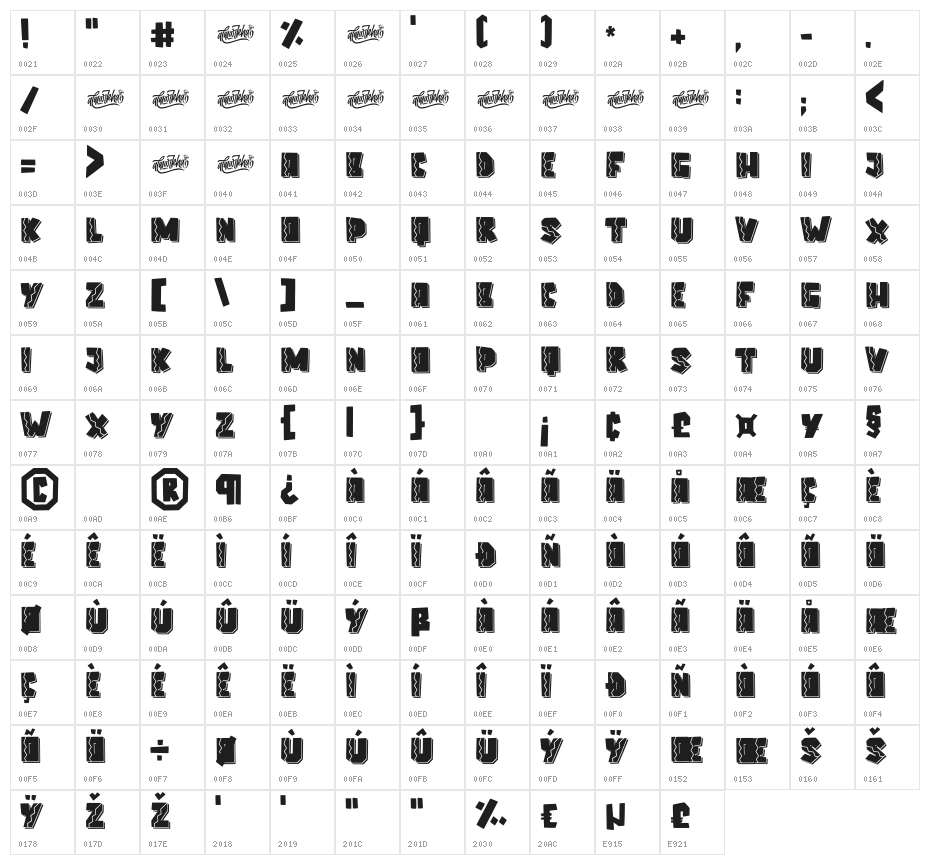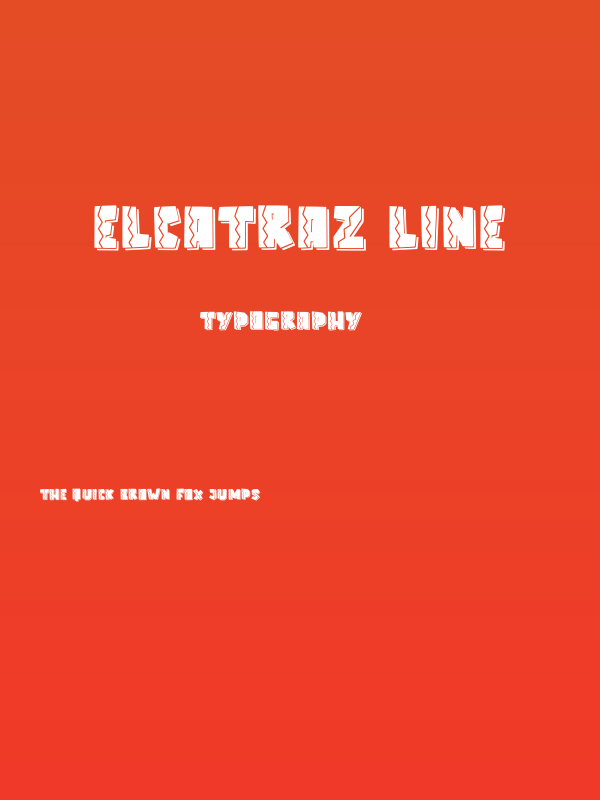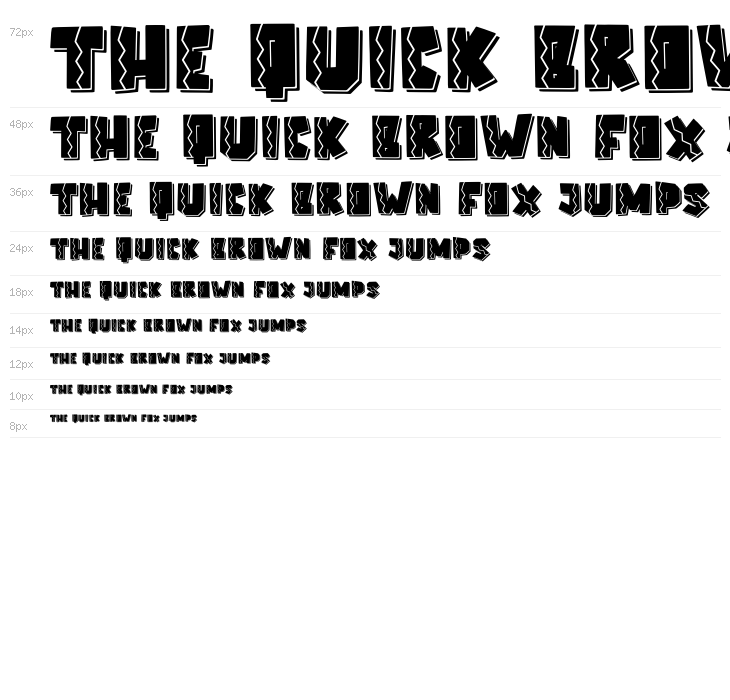
Elcatraz Line Font
Elcatraz Line Description
This font features a bold and striking design with a three-dimensional effect, characterized by thick, angular lines and sharp edges. The uppercase letters are particularly prominent, with a blocky, geometric style that gives them a strong presence. The lowercase letters maintain the same boldness, ensuring consistency across the typeface. The numbers and special characters follow the same design principles, making them equally impactful. This font's unique style makes it ideal for attention-grabbing designs.
| Proposed Projects | Ideal for posters, logos, and branding projects that require a strong visual impact. |